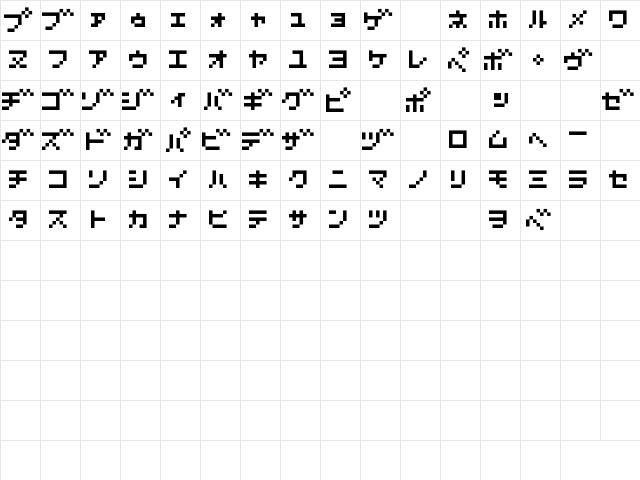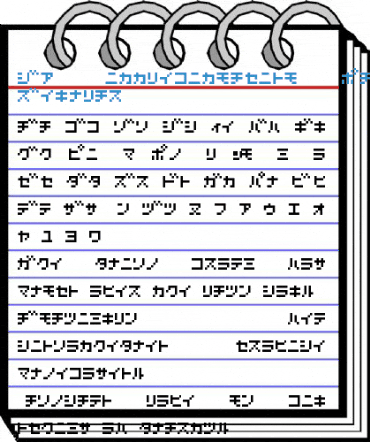
D3 Littlebitmapism Katakana Regular Free Font
D3 Littlebitmapism Katakana Regular
Design Context for D3 Littlebitmapism Katakana
D3 Littlebitmapism Katakana is rooted in pixel-grid construction, making it a natural fit for game UI, retro computing aesthetics, and digital nostalgia projects.
Well-suited to indie game interfaces, retro computing aesthetics, and pixel art-adjacent design work.
Font Pairing: Pairs well with a humanist sans-serif for body copy - the contrast between mechanical precision and organic warmth creates a compelling typographic dynamic.
Pro Tip: Use D3 Littlebitmapism Katakana at sizes that align with its pixel grid for the sharpest rendering - scaling to non-integer multiples can introduce unwanted blur.